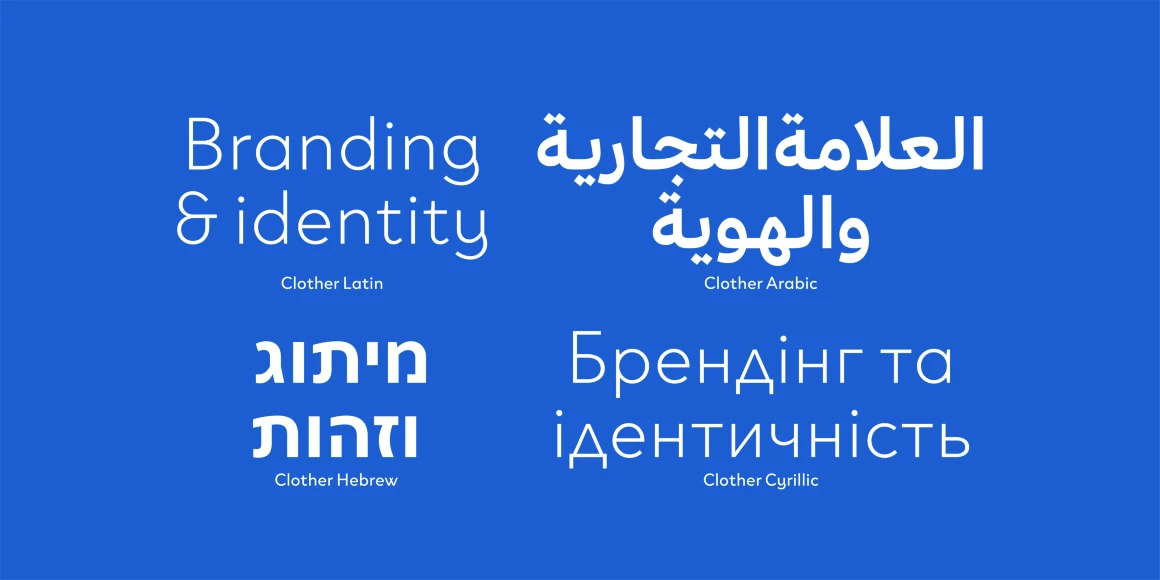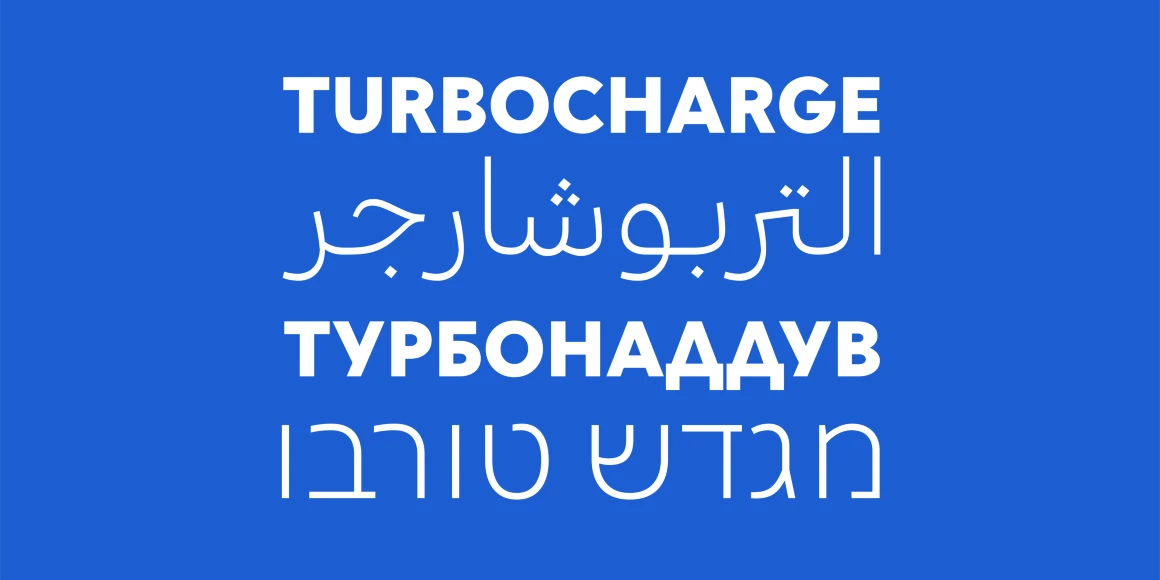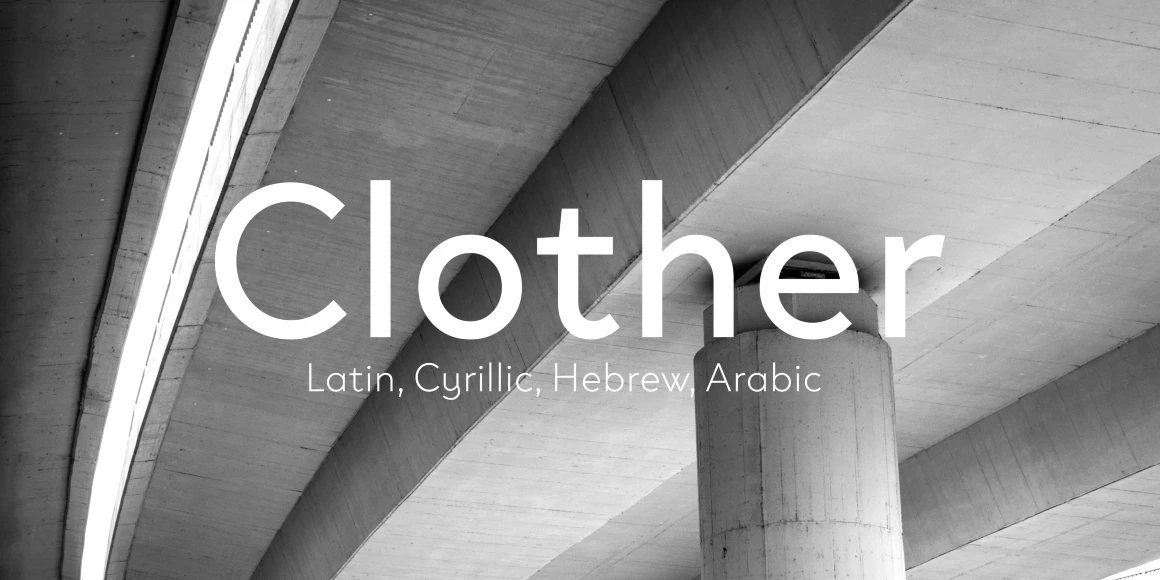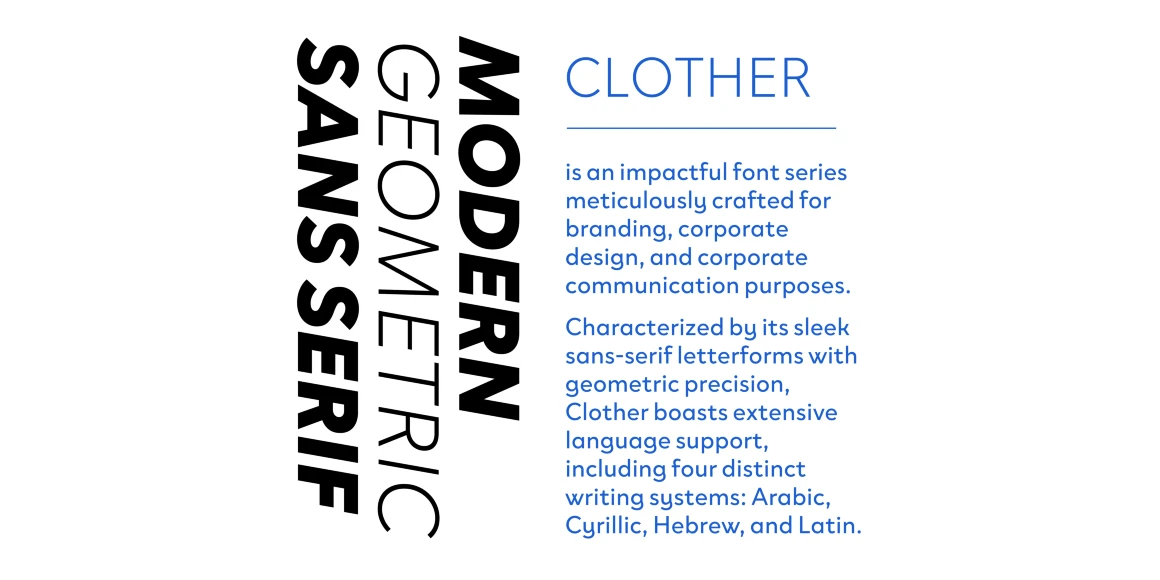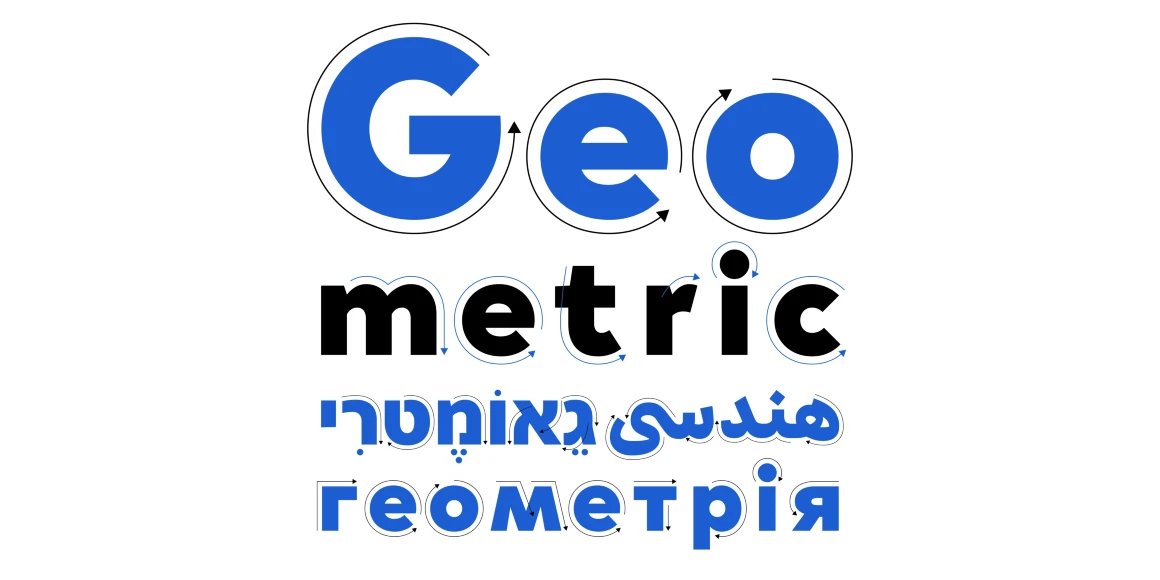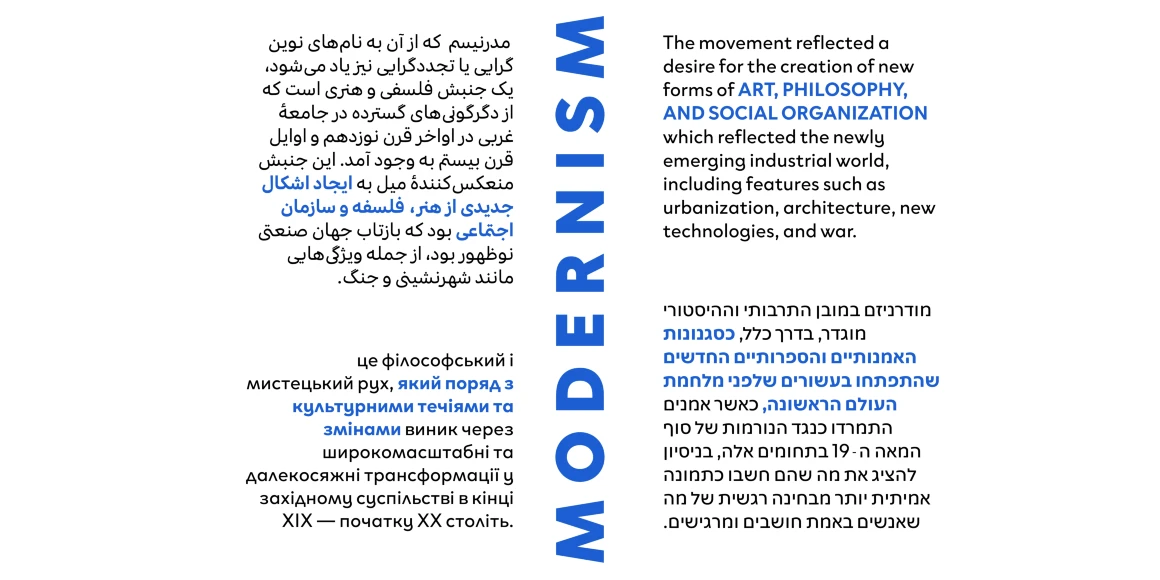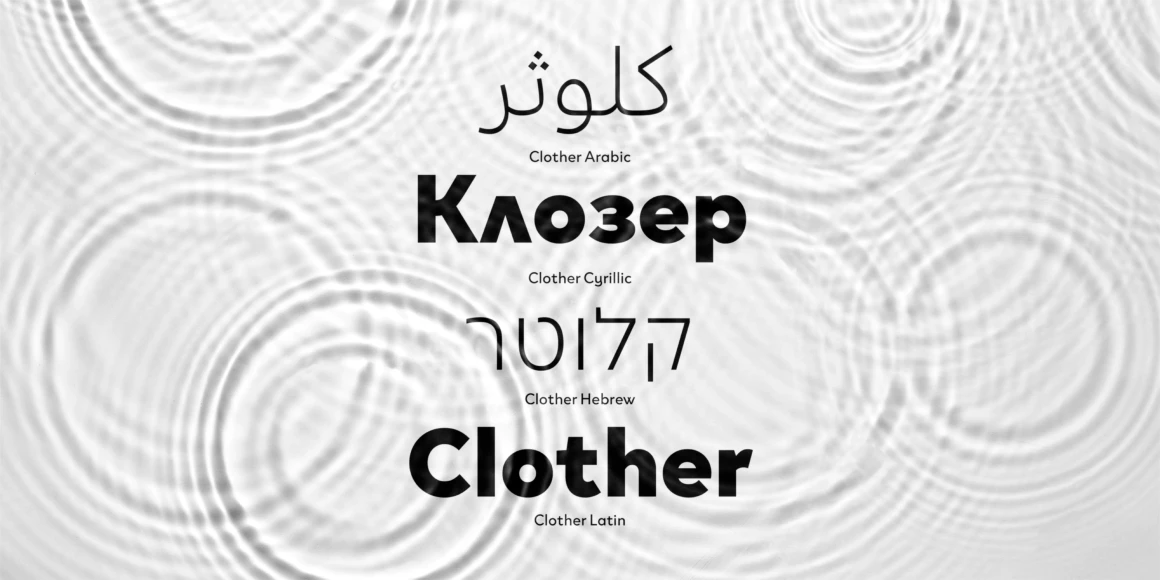
Clother Arabic
By Julie Soudanne, Jérémie Hornus, Ilya Naumoff, Gaëtan Baehr & Hirbod Lotfian
Clother Arabic Variable
Clother Arabic Light
Clother Arabic Regular
Clother Arabic Bold
Clother Arabic Black
Clother is a geometric sans serif family supporting Arabic, Cyrillic, Hebrew, and Latin, designed to deliver a consistent visual identity for branding, corporate design, and communication. Thanks to details that distinguish it from similar typefaces, this cohesive graphic vocabulary enables businesses to reach global markets seamlessly. The low-contrast, almost monolinear lettershapes keep text clean and professional with a modern personality, well-suited for reports, presentations, and internal communication.